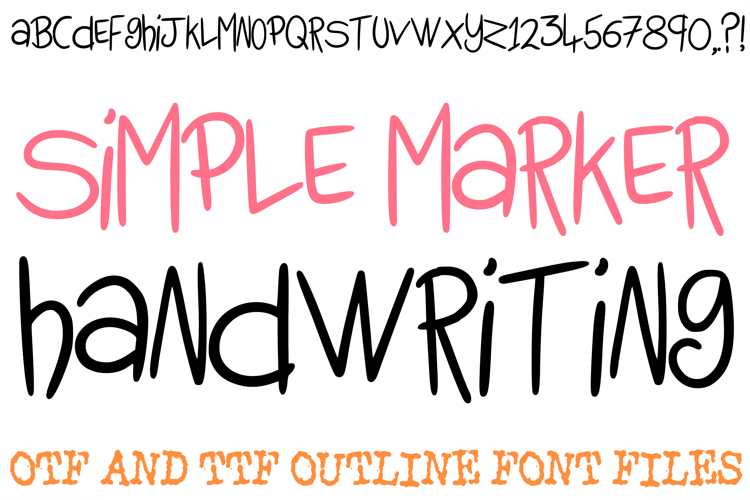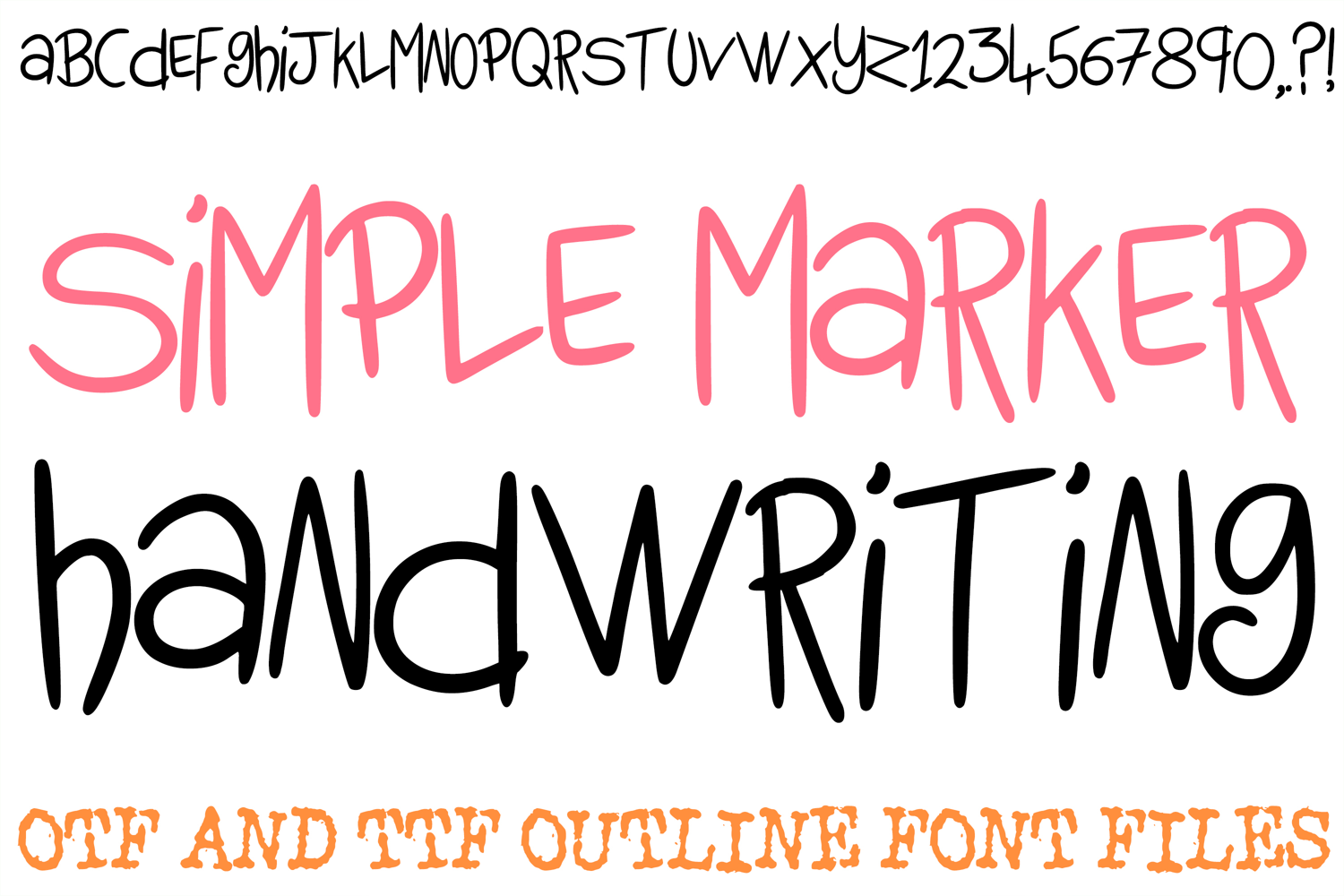
Give your designs an approachable touch with the Simple Marker Handwriting Font! This hand-drawn typeface features a friendly, casual style that looks like it was written directly onto the page with a felt-tip pen. It is the perfect choice for digital journaling, simple branding, "to-do" list graphics, and any project that needs an authentic, human feel.
The slightly wobbly lines and organic shapes provide a sense of warmth and simplicity. Whether you are creating social media captions that need to stand out from standard text, designing minimalist stickers, or adding a "handwritten" note to a digital scrapbooking layout, this font offers a clean yet artisan-crafted aesthetic.
Authentic Hand-Drawn Vibe: The organic, slightly irregular strokes mimic real-world penmanship for a non-digital look.
Unique Character Mix: Features a playful blend of lowercase-style and uppercase-style forms (like the curly 'g' and simple 'k') that add personality to every word.
High Legibility: Despite its "doodle" charm, the characters remain clear and easy to read, making it great for both headlines and short body text.